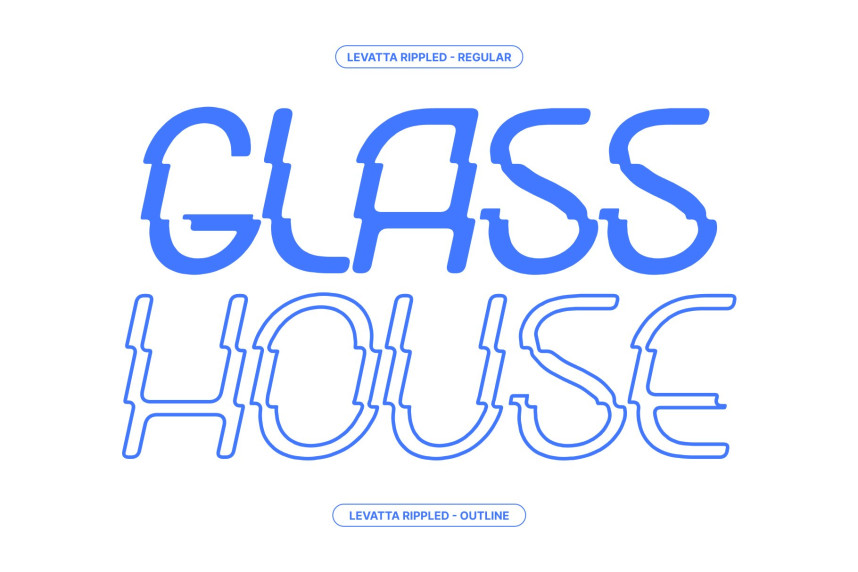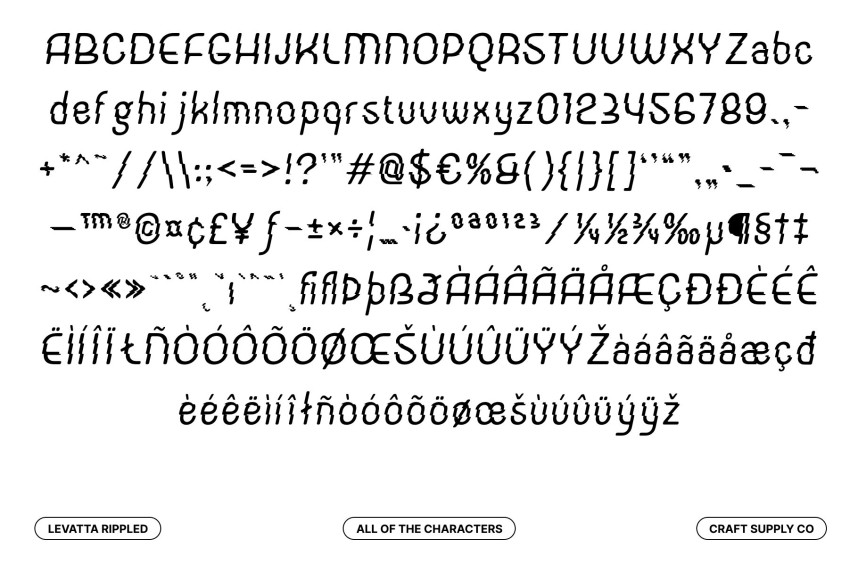
Levatta Rippled Font
Levatta Rippled Font – Contemporary Sans Font with Elegant Fluid Motion
Modern Sans Serif with an Elegant Form
This is a contemporary sans serif font that embodies elegance, clarity, and modern sophistication. Designed with clean lines and refined details, it delivers a polished visual identity that feels both professional and stylish. Its balanced letterforms create a harmonious reading experience while maintaining a sleek contemporary appearance.